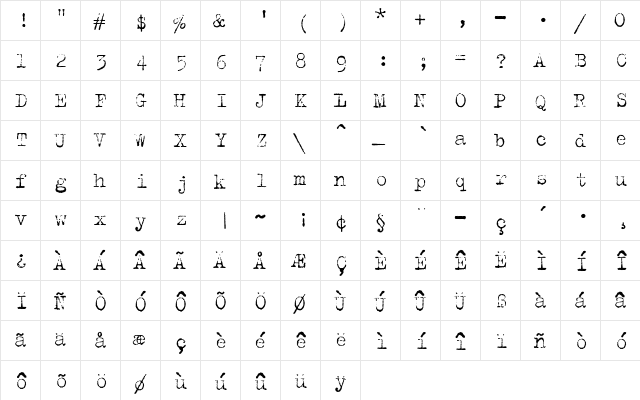
Trixie-Light Light
| Foundry | Copr. LettError; Erik van Blokland |
Design Context for Trixie-Light Typeface
Trixie-Light takes a measured approach to typography — its balanced proportions and neutral character make it a reliable workhorse for both digital and print work. The delicate stroke weight brings airiness and refinement to layouts.